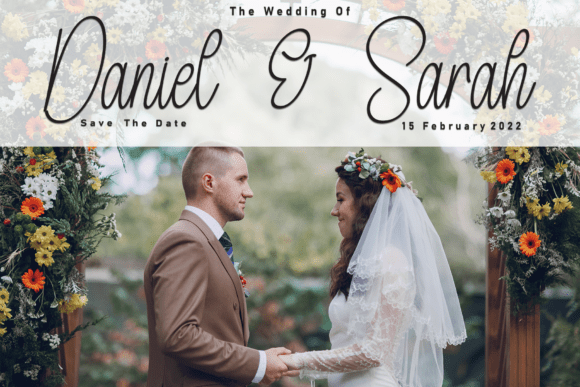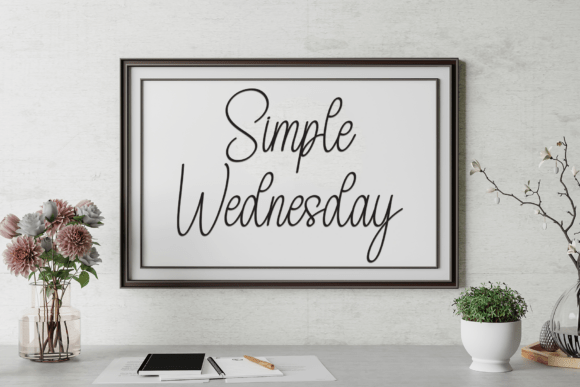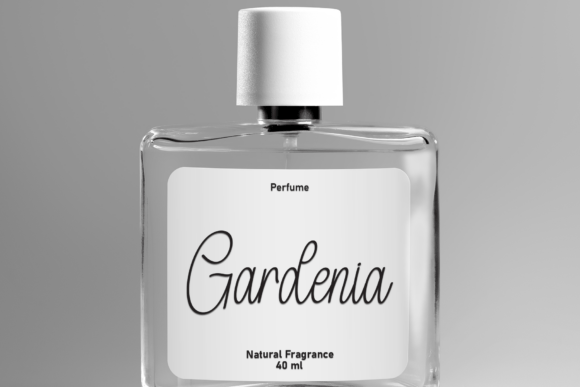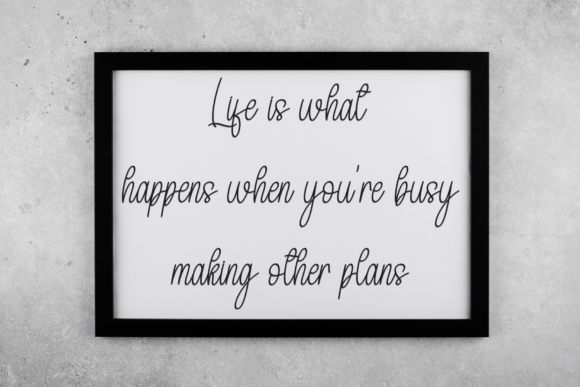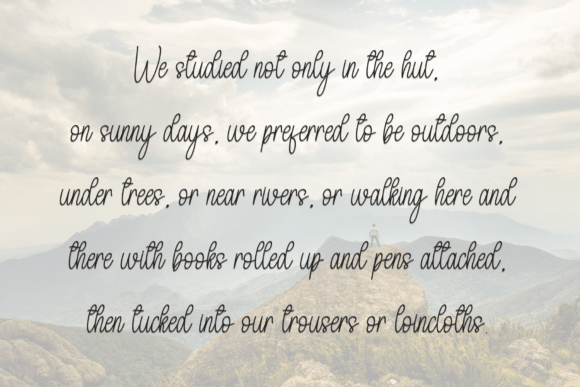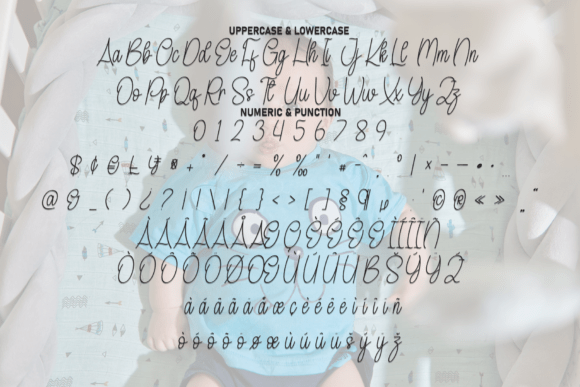
Baby Sublimation Font: A Whimsical Journey of Typography
Immerse yourself in the enchanting world of typeface with the stunning handwritten display font, Baby Sublimation. Bursting with fascinating allure and lively charisma, this font skillfully portrays a picturesque journey of harmony and serenity. Ideal for creating captivating wedding invitations or jovial greeting cards, Baby Sublimation acts as your creative confidante, perpetually primed to spread a sheath of cheer across all your artistic pursuits.
The Allure of Baby Sublimation Font
Baby Sublimation Font is a one-of-a-kind, handwritten display font that exudes warmth and playfulness. Its unique charm lies in its ability to add a touch of whimsy to any design project. The font’s flowing curves and carefree spirit make it perfect for designs that require a dash of personality. Whether you’re a designer, crafter, or DIY enthusiast, Baby Sublimation Font is sure to become your go-to companion for all your creative endeavors.
Key Features of Baby Sublimation Font
- Handwritten Display Font: Baby Sublimation Font boasts a beautiful, handwritten style that adds a personal touch to any design.
- Whimsical Charm: The font’s playful and carefree spirit makes it perfect for designs that require a touch of whimsy.
- Highly Versatile: Baby Sublimation Font can be used for a wide range of design projects, from wedding invitations to greeting cards, posters, and more.
- Easy to Read: Despite its playful nature, the font remains highly legible, making it suitable for both headings and body text.
Design Applications for Baby Sublimation Font
Baby Sublimation Font is an incredibly versatile font that can be used for various design applications. Here are some ideas to get you started:
- Wedding Invitations: Add a touch of elegance and whimsy to your wedding invitations with Baby Sublimation Font.
- Greeting Cards: Create jovial and playful greeting cards for birthdays, holidays, or special occasions.
- Posters and Flyers: Use Baby Sublimation Font to create eye-catching posters and flyers for events, promotions, or product launches.
- Social Media Graphics: Add a dash of personality to your social media graphics, such as Instagram posts, Facebook covers, or Twitter headers.
Tips for Using Baby Sublimation Font
To get the most out of Baby Sublimation Font, here are some tips to keep in mind:
- Experiment with Colors: The font’s playful nature lends itself well to bright and bold color schemes.
- Mix and Match: Combine Baby Sublimation Font with other fonts to create a unique and visually appealing design.
- Play with Size and Scale: Use the font in various sizes to create visual hierarchy and add emphasis to important elements.